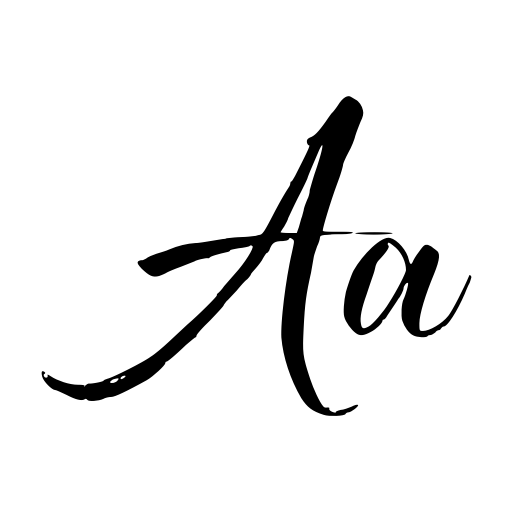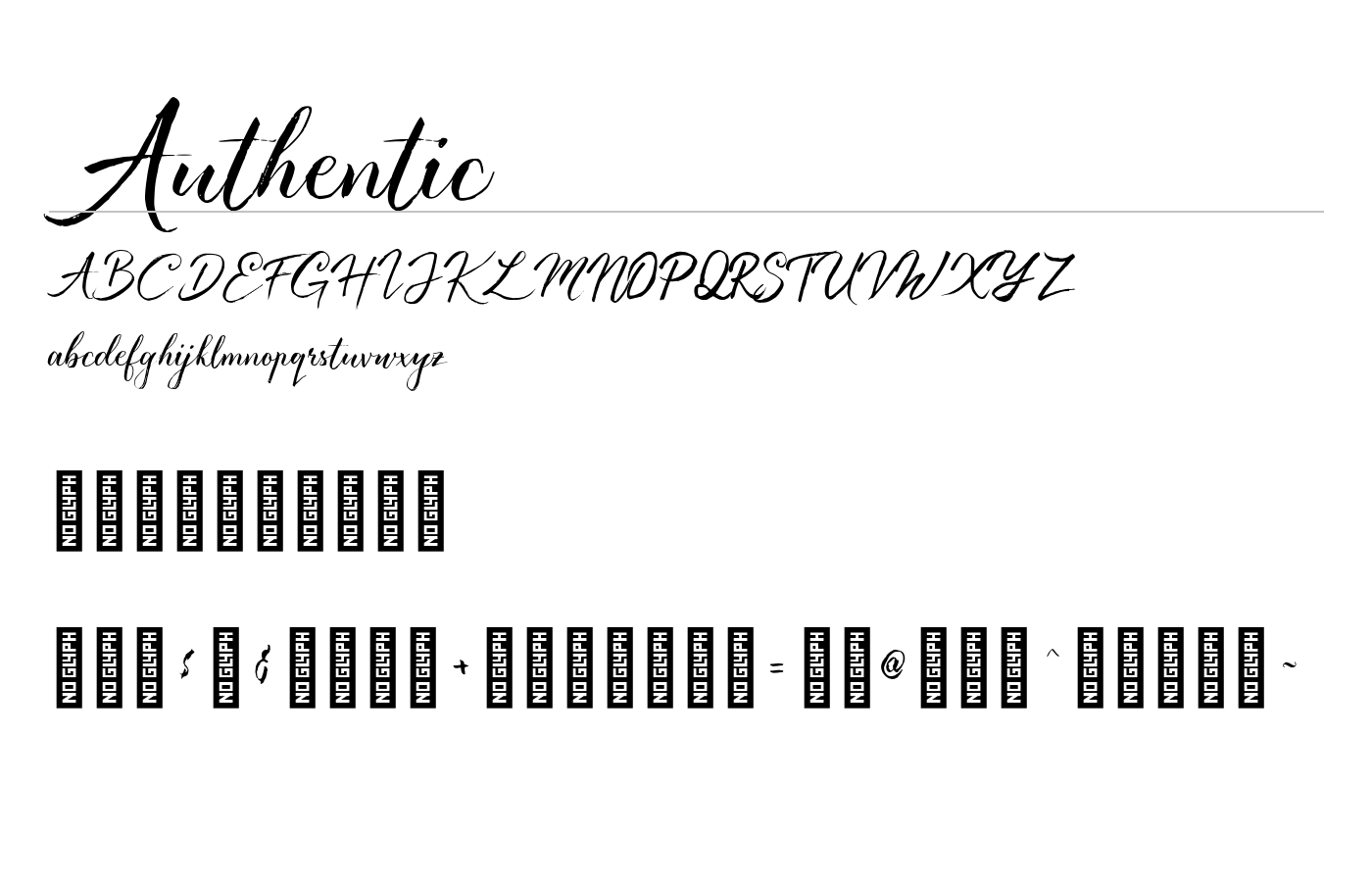
Authentic Font is an elegant script typeface that exudes a personal, handcrafted charm with its flowing, calligraphic letterforms and moderate stroke contrast. Its tall, narrow style and delicate curves make it ideal for sophisticated branding, invitations, and stylish editorial designs where a touch of refinement and individuality is desired. This font works beautifully in contexts that require an expressive, graceful feel, lending authenticity and elegance to luxury and creative projects.
Authentic Font
About Authentic Font
| Font family | Authentic Font |
| Designer | David Kasidi |